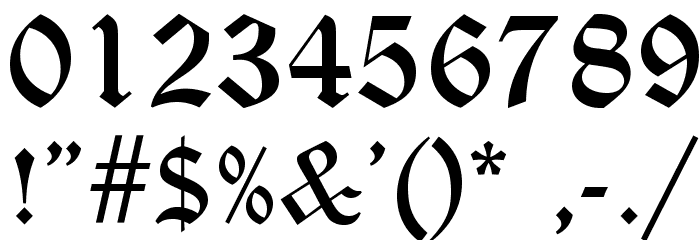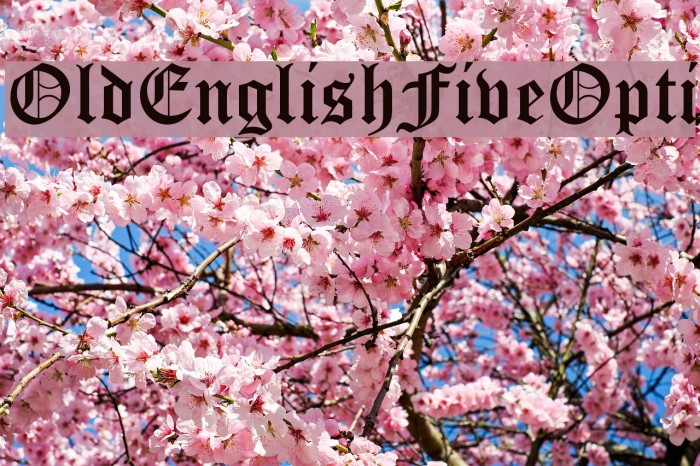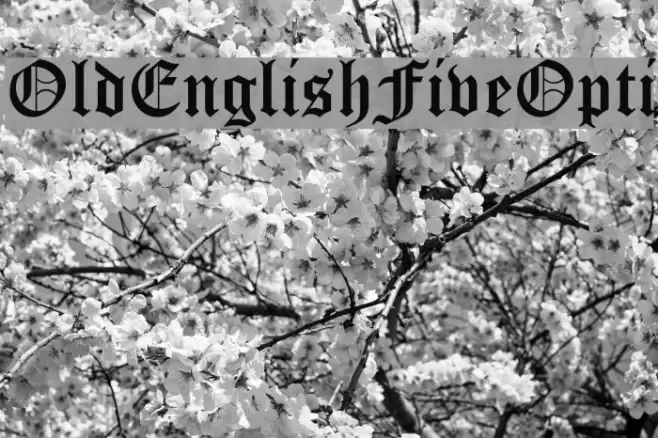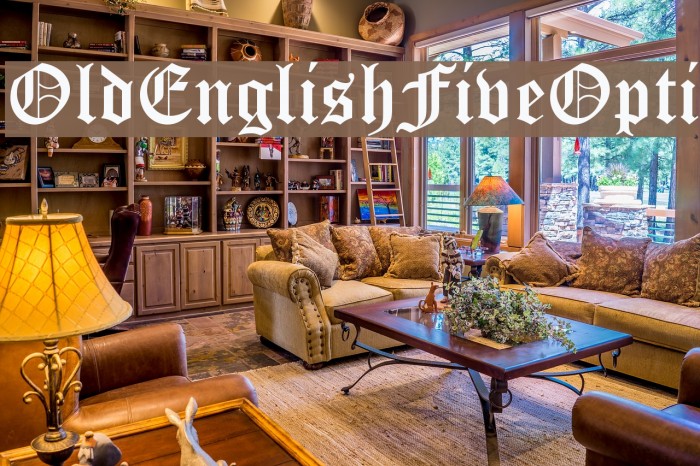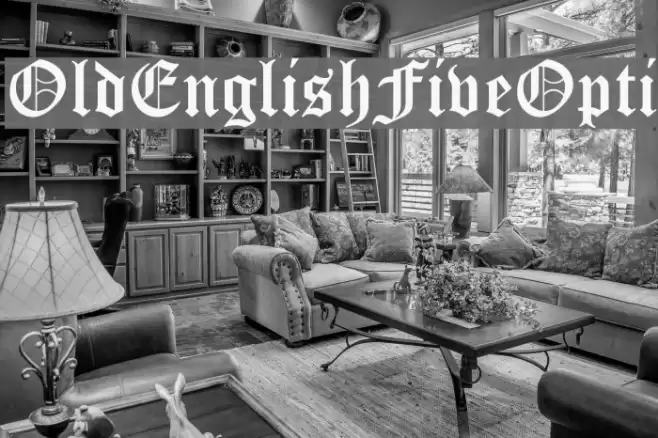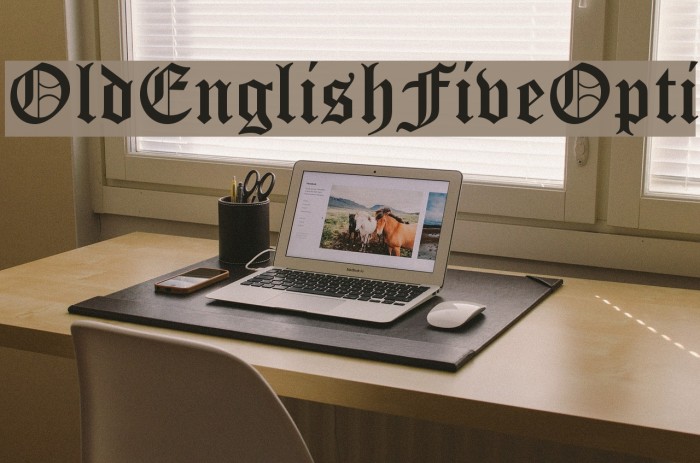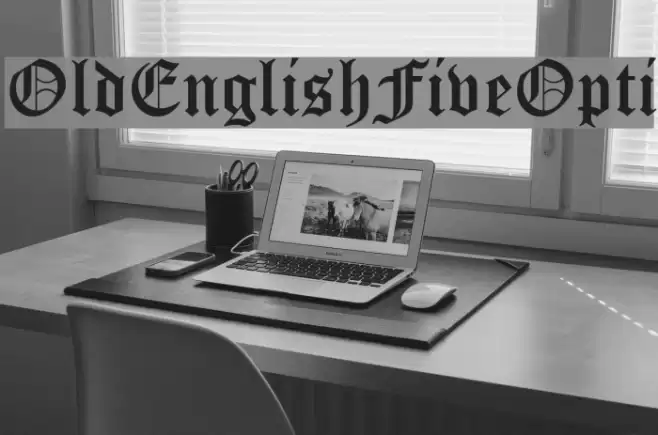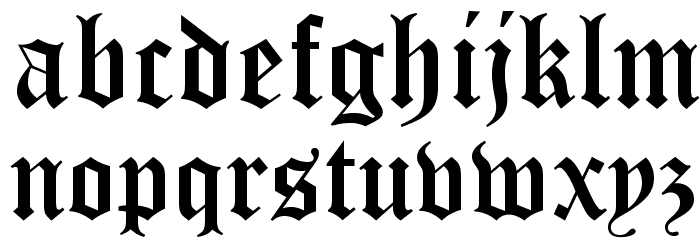
OldEnglishFiveOpti Font
OldEnglishFiveOpti Description
This font exudes a classic and historical charm, reminiscent of medieval manuscripts and traditional calligraphy. The characters are intricately designed with sharp, angular strokes and elaborate serifs, giving it a distinct Gothic appearance. The uppercase letters are particularly ornate, featuring decorative flourishes that enhance their majestic presence. The lowercase letters maintain the same intricate detailing, ensuring consistency throughout the typeface. Numbers and special characters are equally stylized, making them suitable for thematic designs. This font is perfect for projects that require a touch of elegance and historical depth.
| Overall Style | Vintage |
| Use Case | Logos, Headlines, Decorative purposes |
| Proposed Projects | Ideal for historical documents, wedding invitations, book covers, and branding that requires a classic touch. |